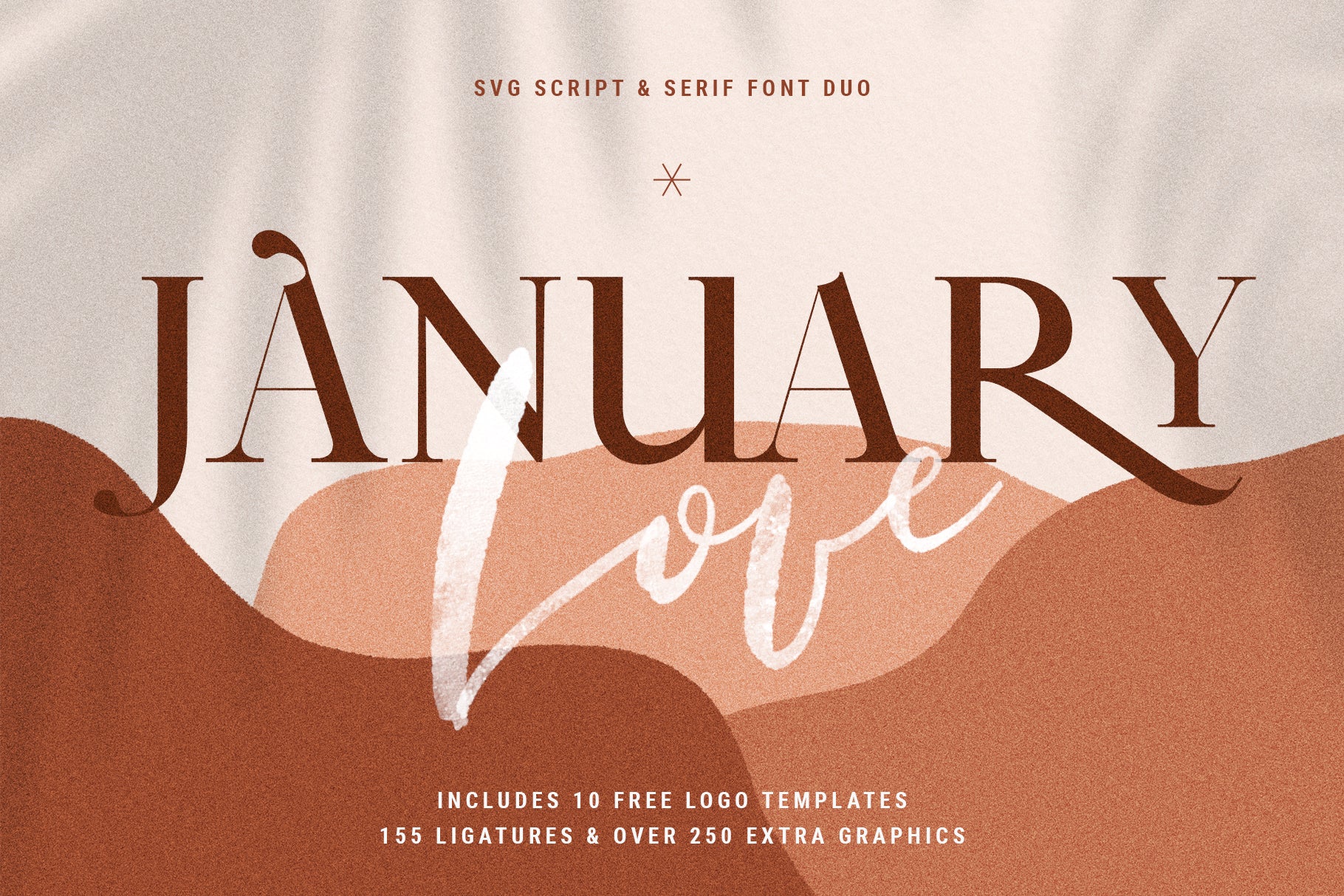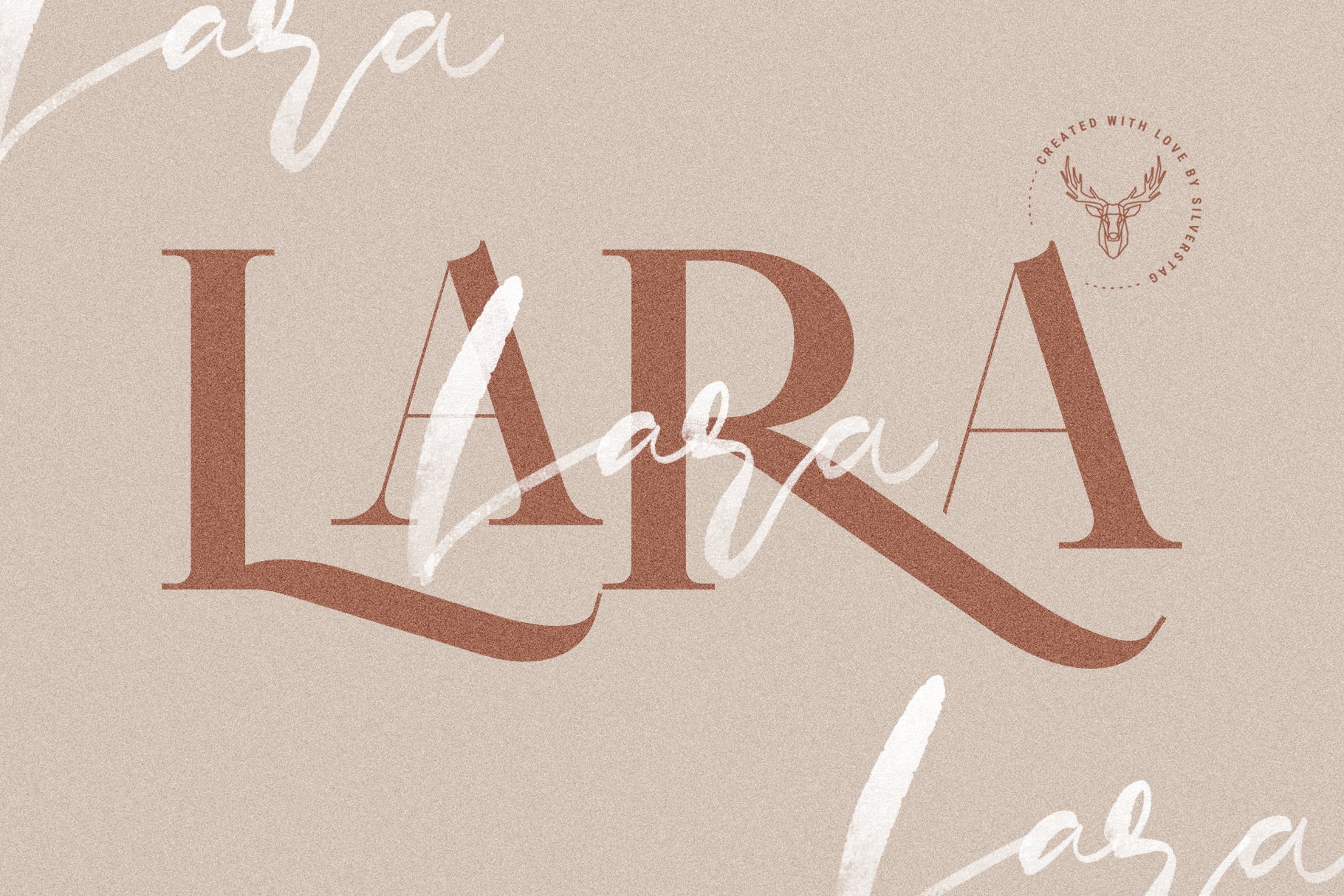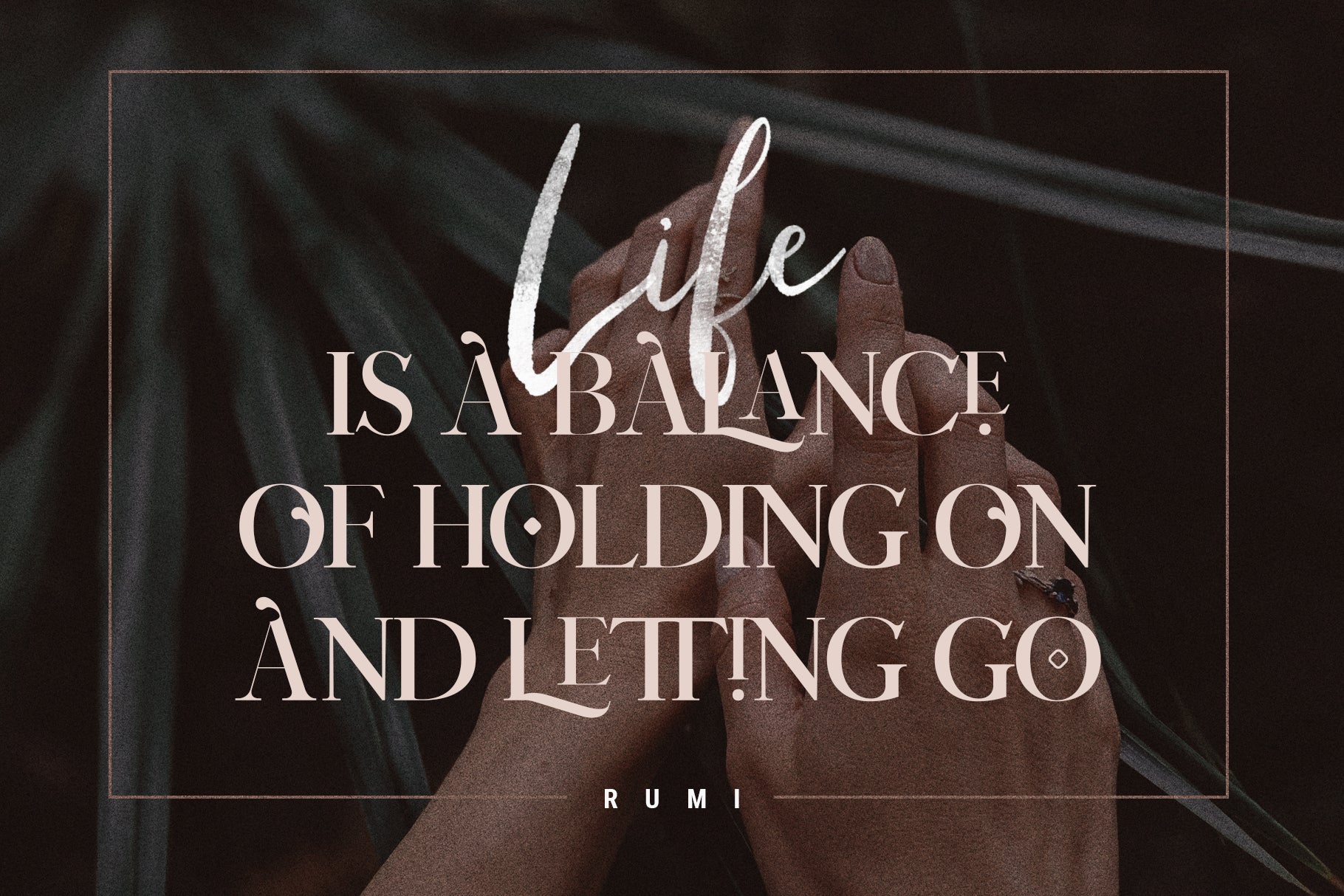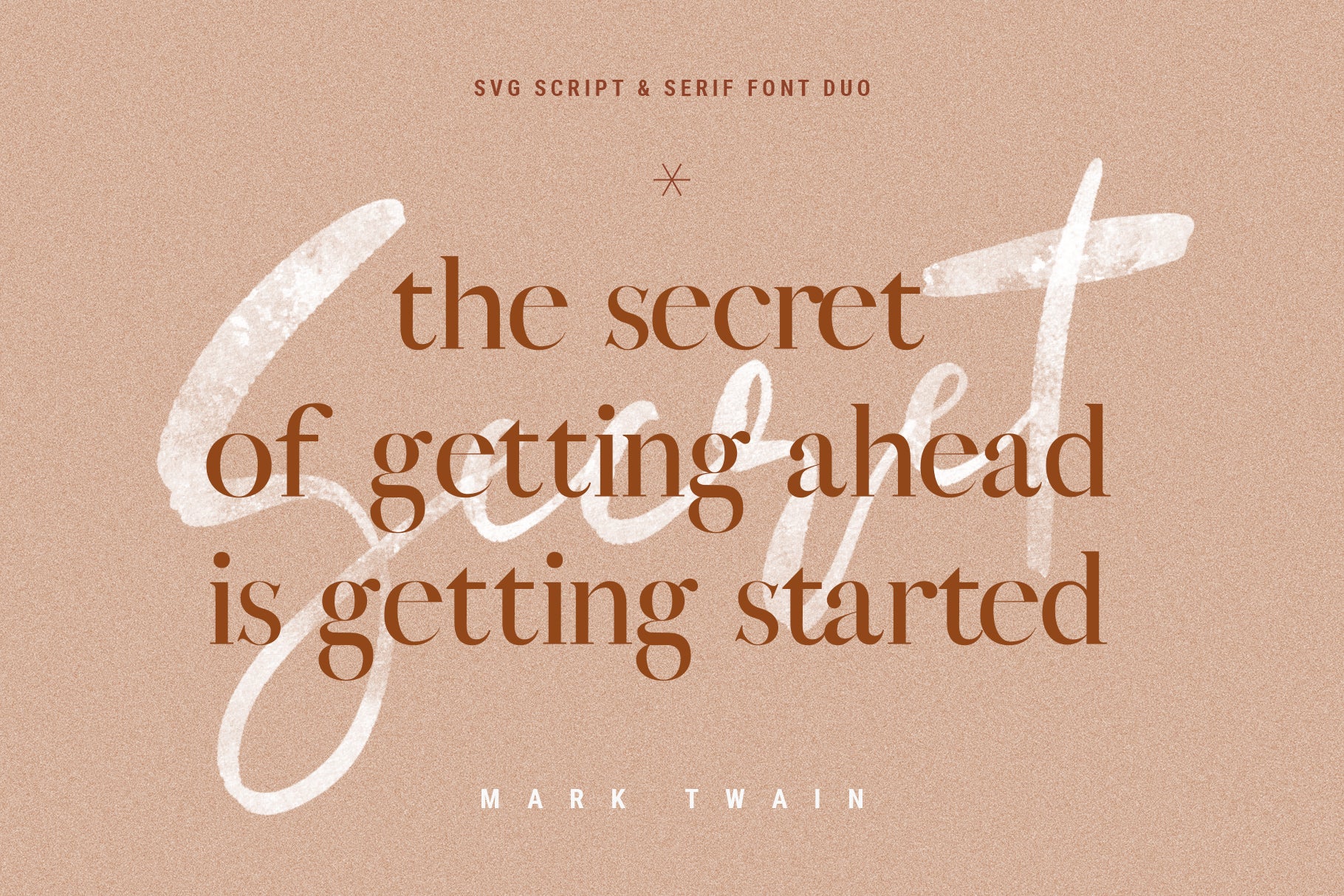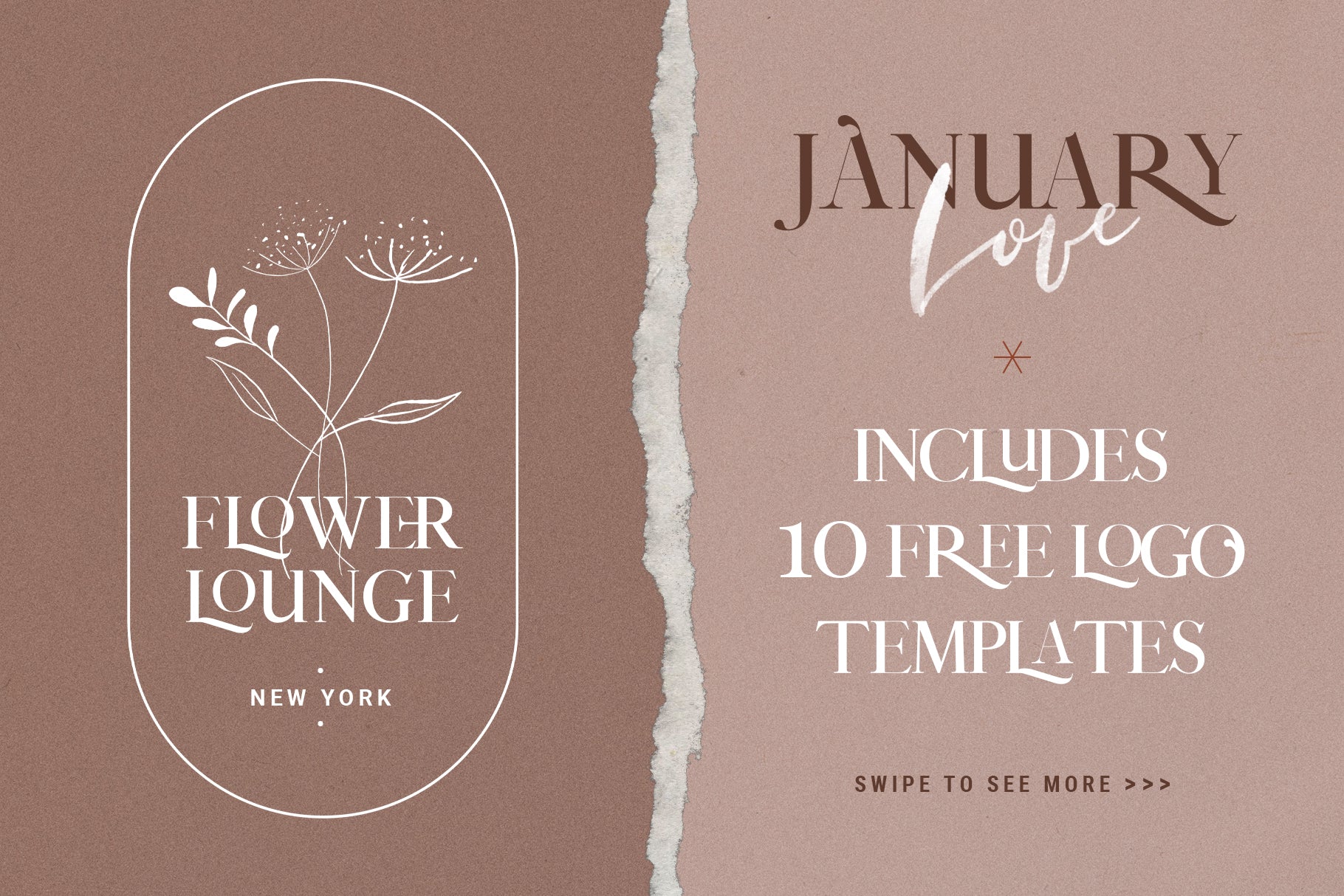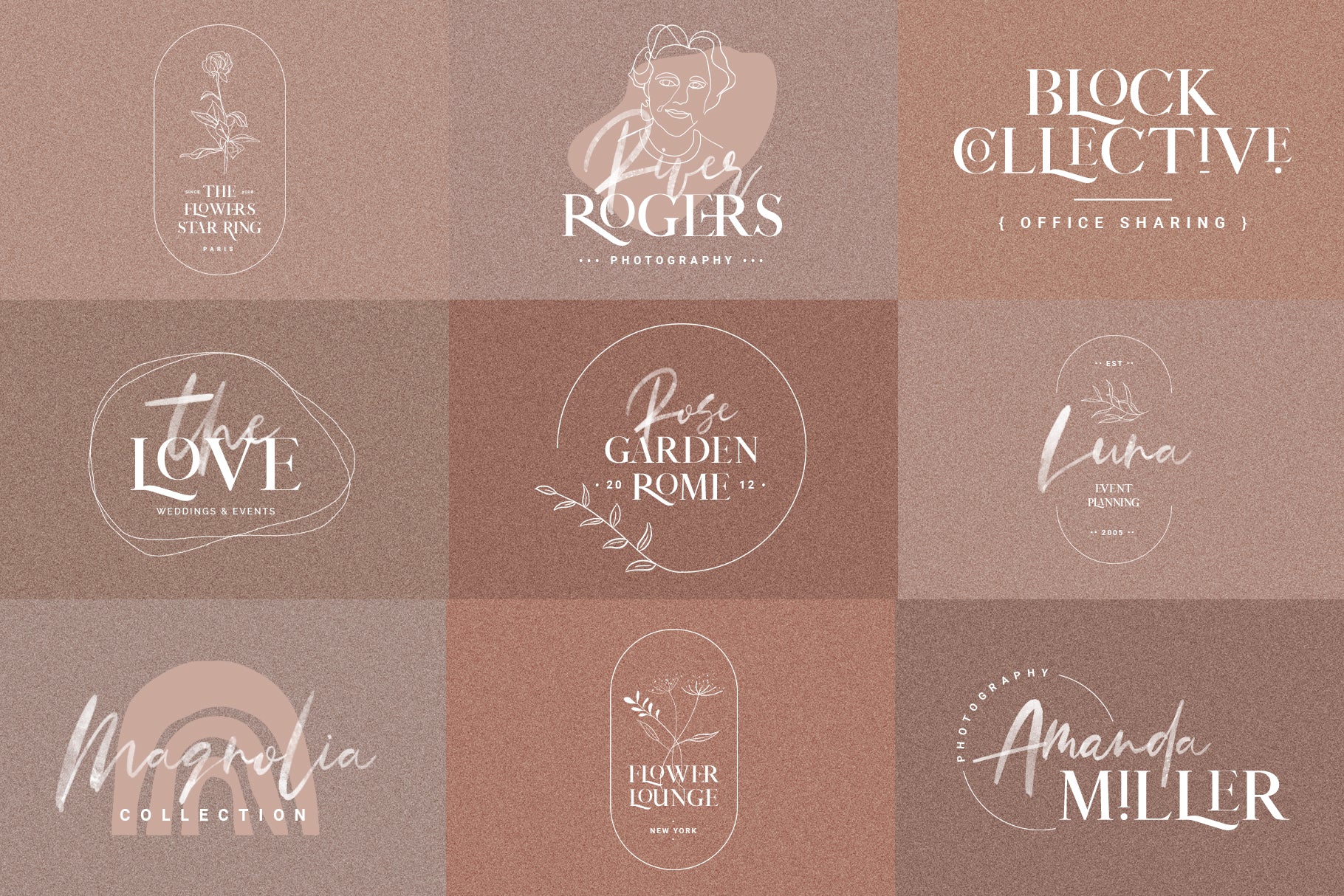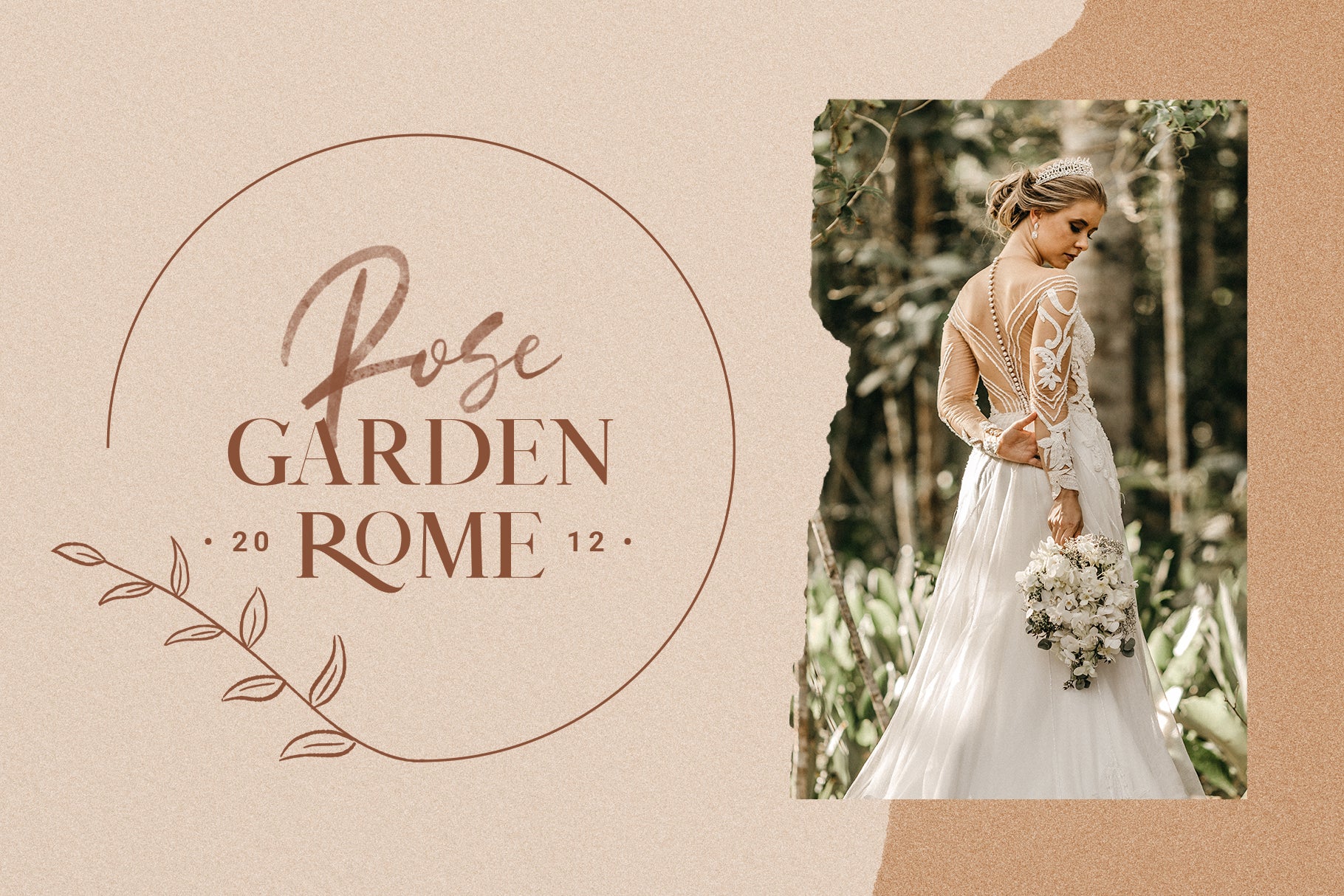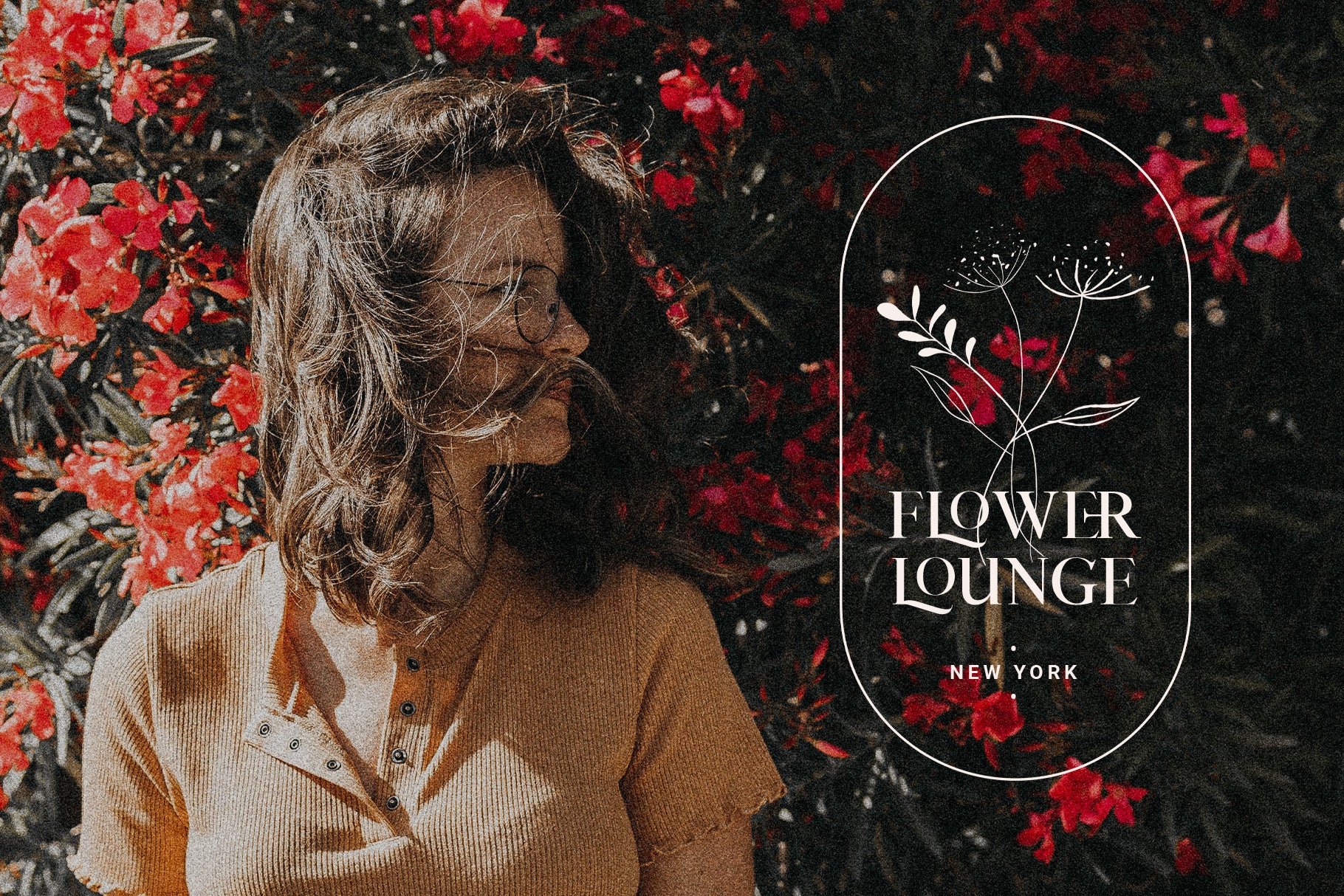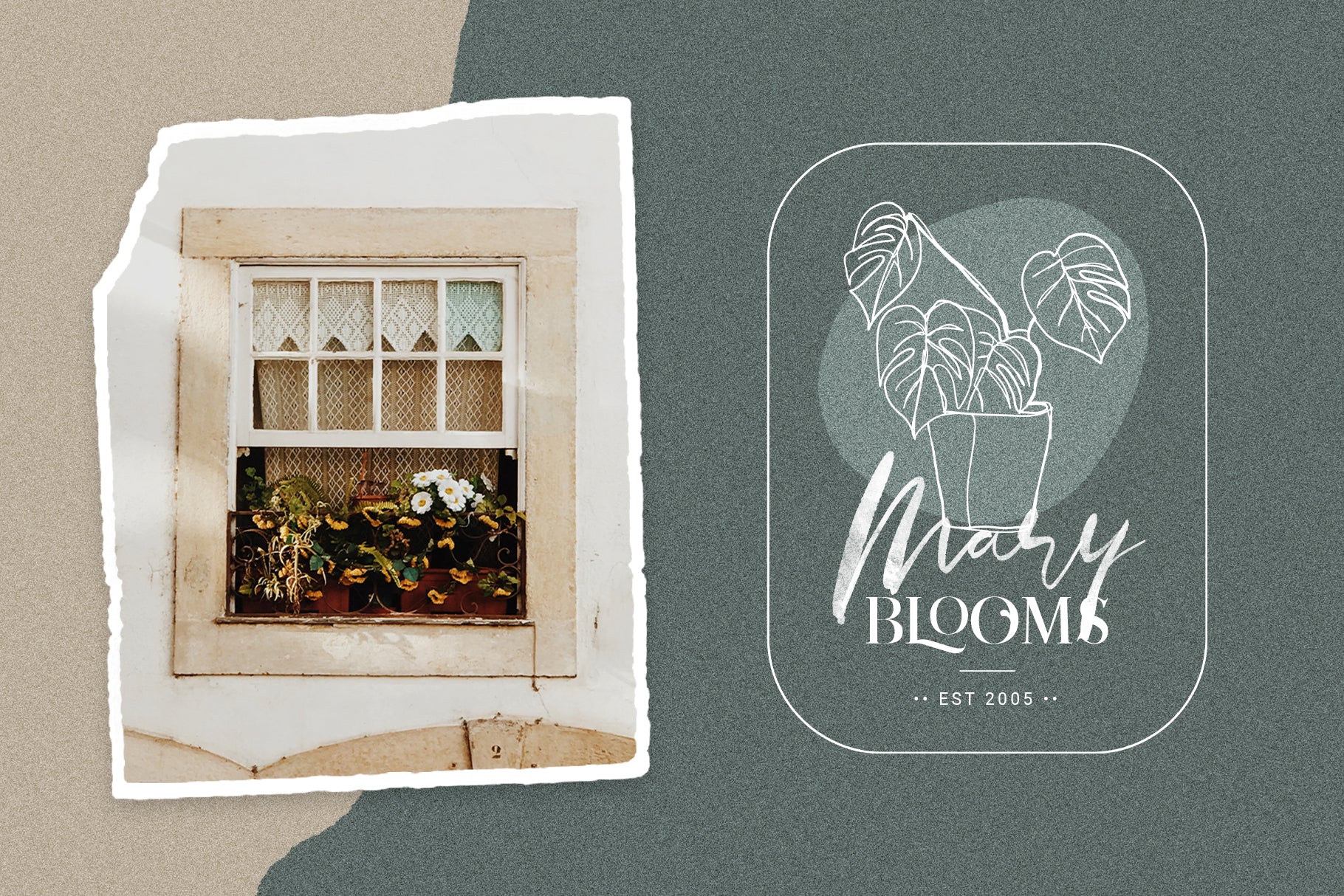
January Love is a romantic and artistic font duo that pairs a chic serif with a hand-painted watercolor SVG script. Designed to bring warmth and...
January Love is a romantic and artistic font duo that pairs a chic serif with a hand-painted watercolor SVG script. Designed to bring warmth and personality to the coldest month, this typeface bundle is packed with expressive features: 67 serif alternates and ligatures, and 88 flowing script ligatures across two script formats—an SVG version for a true watercolor look and a standard version for full software compatibility.
But January Love is more than just fonts. You’ll also get 10 free logo templates (for Photoshop and Illustrator), 29 Instagram Story backgrounds, and 250+ additional graphics, including foliage, shapes, hand-drawn elements, and decorative line art—all thoughtfully crafted to help you build dreamy, love-filled designs.
From elegant ligature-rich serif text to expressive brush lettering, January Love delivers a beautiful balance of refinement and emotion in every project.